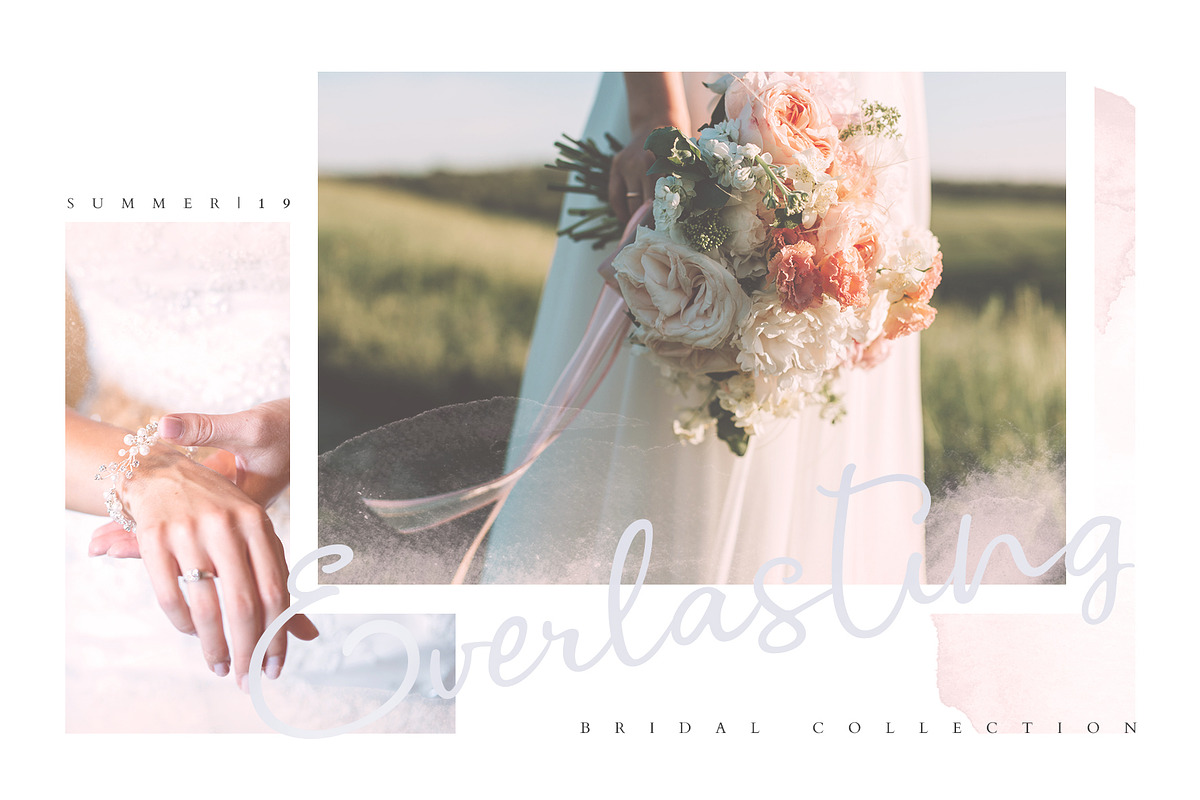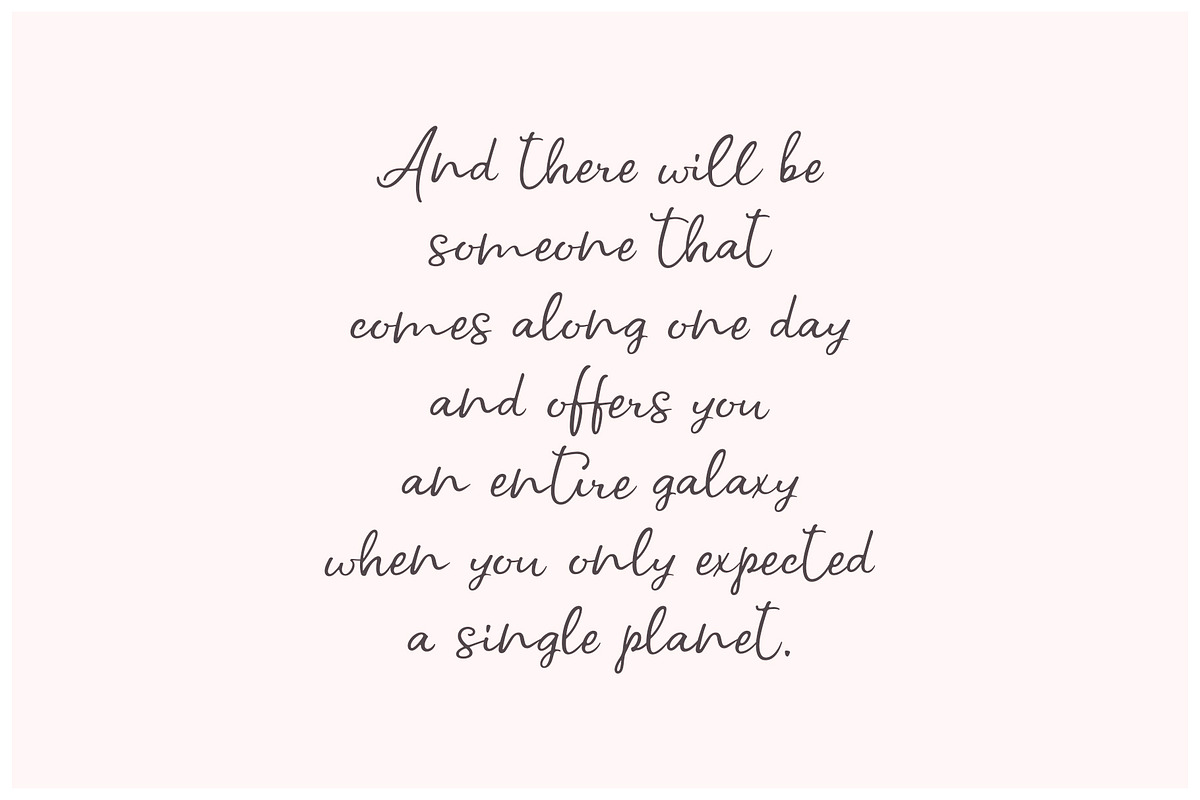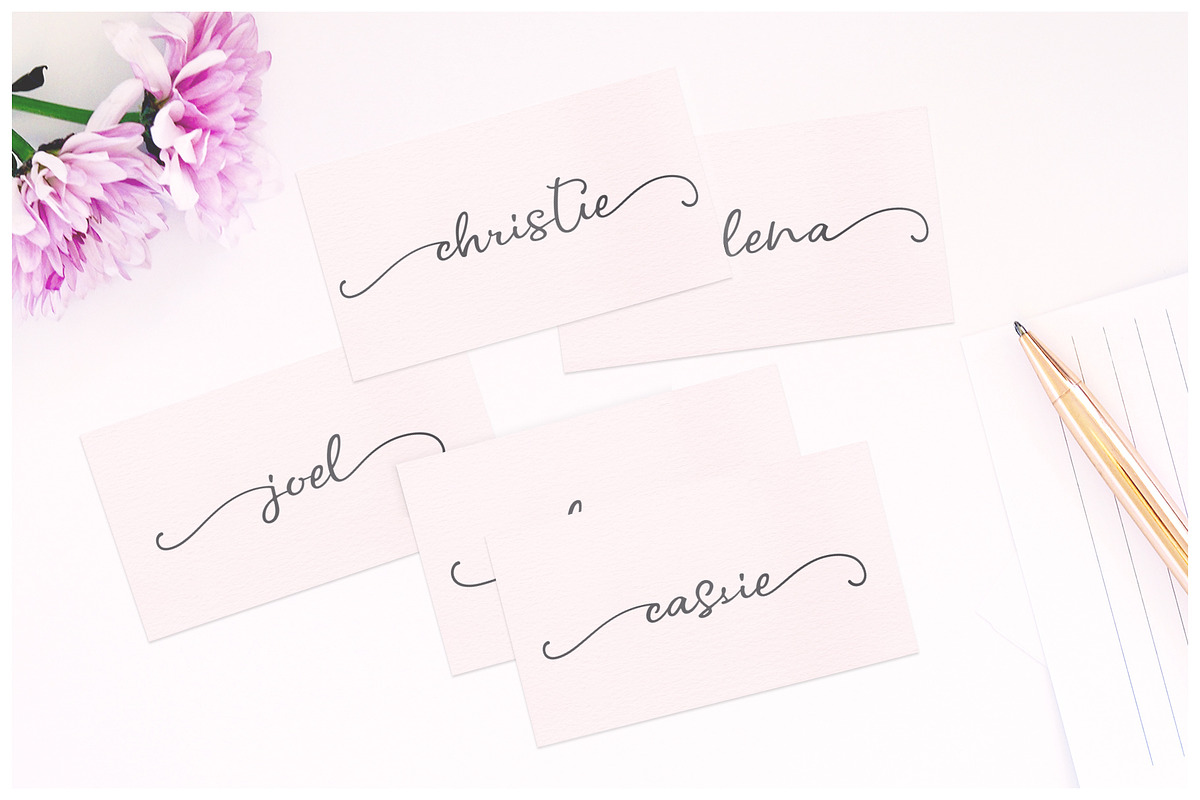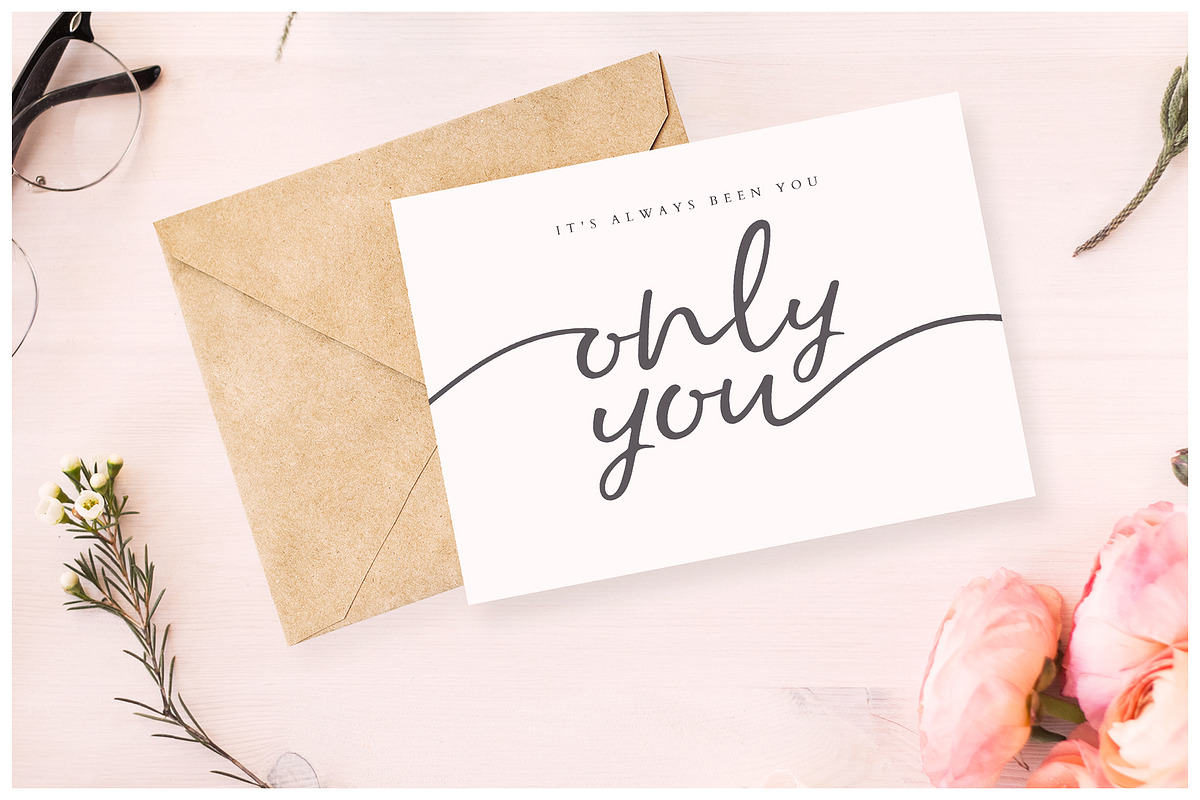
Ever After | Modern Calligraphy Font
Ever After is a modern script font with a highly romantic character.
The smooth letterforms are ideal for creating vinyl cut designs, such as in Silhouette, Cricut, etc.
The lowercase letters come with swash alternates including "infinity swashes" that create an infinity sign between words.
Swashes and Infinity Swashes are also provided as separate fonts to make it even easier to use, or in case you work with non-Opentype software.
There are 2 types of swashes in Ever After:
1- Front and End Swashes 2- Infinity Swashes
Turn on Standard Ligatures AND Contextual Alternates, then simply type: "name8name". No spaces. Example: John8Jane, Jack8Jill, Romeo8Juliette
Simply choose the Infinity Swash Font for the end of 1st word and start of 2nd. (Uppercase followed by Lowercase) Example: JacKjill, JohNjane, RomeOjuliette
A separate infinity sign is also included as a discretionary ligature and can be accessed by typing "0x0" (zero x zero)